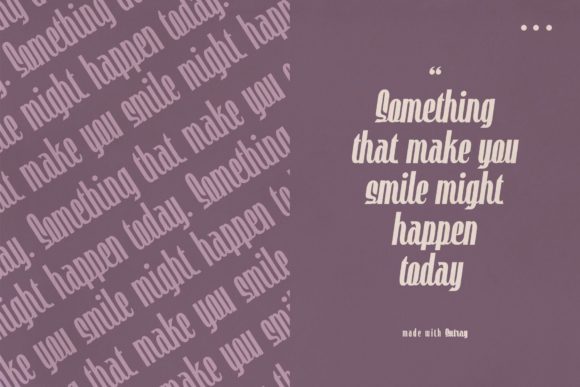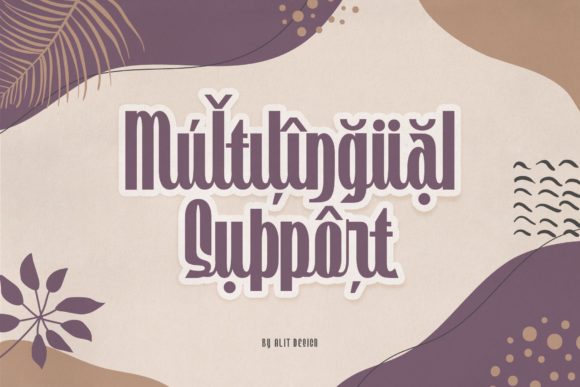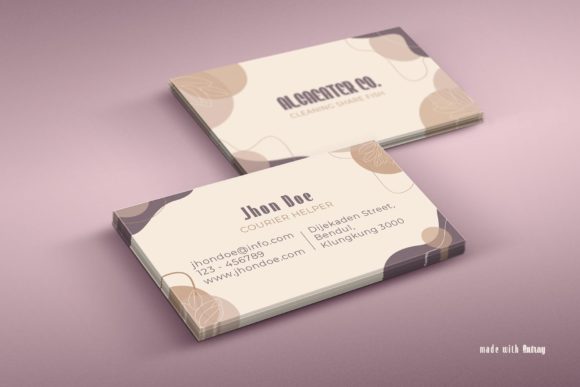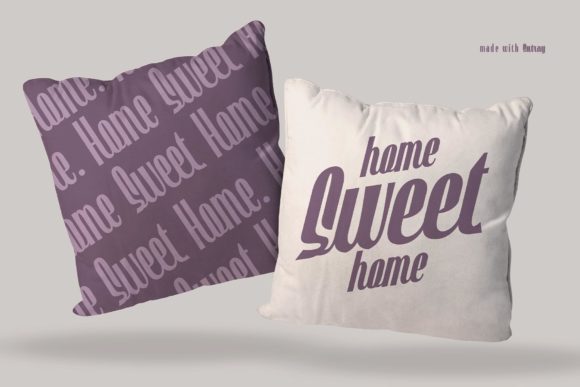
About Sutray Typeface Font
Sutray Typeface has a script style with a retro theme that is unique and cool. This font is very attractive due to its uniqueness, and you can use it for making poster designs, logotypes, text headers, and magazine covers. Its seven styles make it a versatile font for any of your projects.